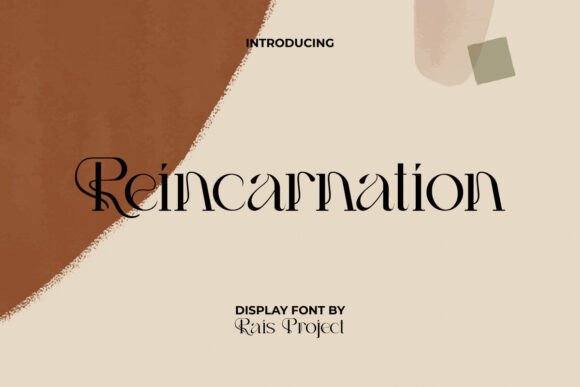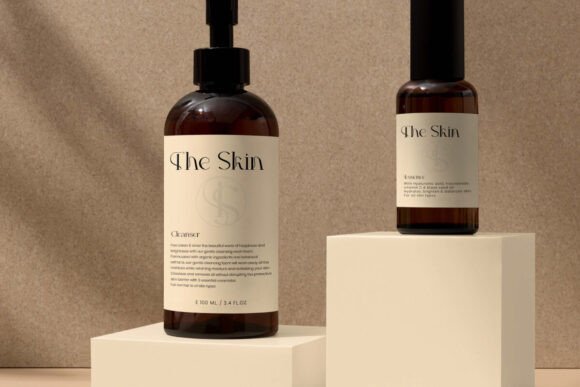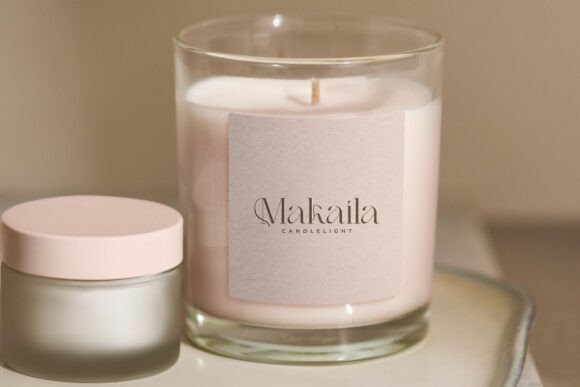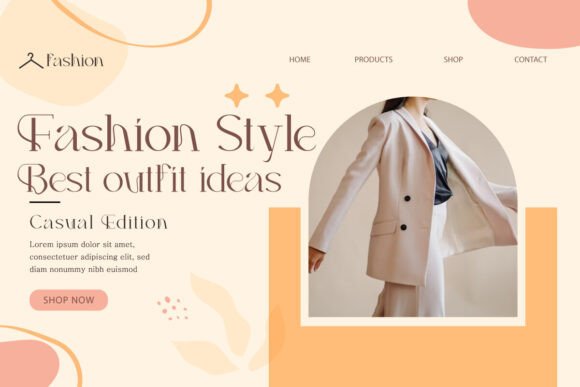
Reincarnation Font: Elegant Display Font for Luxury Branding & Logo Design
About the Reincarnation Font
The Reincarnation Font offers a perfect balance of form and function for your design needs. Reincarnation is a bold and artistic display font with a modern twist. Its sharp curves and elegant details exude sophistication, making it perfect for fashion branding, editorial layouts, luxury product designs, or any project that needs a unique and classy touch. Elevate your typography with this distinctive and stylish font.
Reincarnation excels in headlines, short impactful phrases, and logo design where its bold strokes command attention. It’s ideal for projects demanding a sophisticated and slightly edgy aesthetic, such as high-fashion branding, minimalist posters, or upscale packaging. Avoid using it for large bodies of text or UI elements; its strong character isn’t suited to extended readability.
Pairing Reincarnation effectively requires considering its inherent boldness. A clean sans-serif like Montserrat or a subtly geometric font like Futura would create a balanced contrast. For a touch of warmth, a delicate script font can add visual interest, provided it doesn’t overwhelm Reincarnation’s presence.
The overall personality of Reincarnation is modern and bold with an underlying elegance. Its sharp angles project confidence and sophistication, while the curves hint at a playful yet controlled energy.